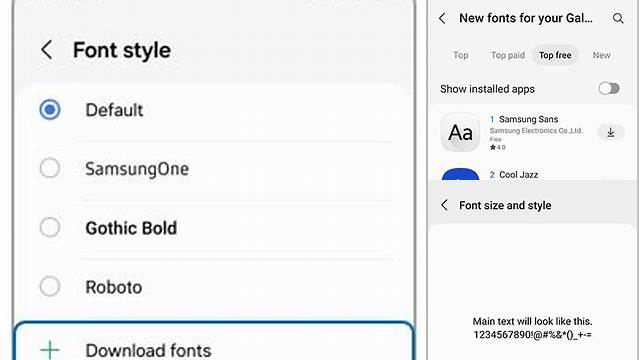
Free Samsung Fonts: Download & Alternatives (2024)
Are you looking to spice up your Samsung device with a fresh new font? Or perhaps you're a designer aiming to maintain brand consistency across all platforms? Well, you've come to the right place! In this comprehensive guide, we'll dive deep into the world of Samsung fonts, exploring how to find them, download them, install them, and even use them in your design projects. We'll also touch upon the legal aspects of using fonts and highlight some of the best free Samsung font alternatives available. So, buckle up and let's get started!
Understanding Samsung Fonts
Before we jump into the nitty-gritty, let's take a moment to understand what we mean by "Samsung fonts." Samsung, like other tech giants, has developed its own unique font families to create a consistent and recognizable brand identity across its devices and marketing materials. These fonts are carefully crafted to be legible, aesthetically pleasing, and to reflect Samsung's brand personality. Think of it like this: the font is a part of the overall user experience, contributing to how we perceive and interact with the technology.
Samsung's most recognizable font is likely SamsungOne. This font family was designed to be versatile and multilingual, supporting a wide range of languages and scripts. It's used extensively across Samsung's products, from smartphones and tablets to televisions and websites. The goal was to create a unified brand voice, so no matter where you encounter a Samsung product, you'll see the same consistent typography. It’s this attention to detail that really sets brands apart, guys, and it’s something to consider if you're working on your own branding!
Using a consistent font across all your materials, whether it’s a tech giant like Samsung or your own personal brand, creates a sense of professionalism and coherence. Imagine if Samsung used a different font on every device – it would be a typographic nightmare! So, understanding the importance of fonts in branding is the first step in appreciating why Samsung has invested so much in its own font families.